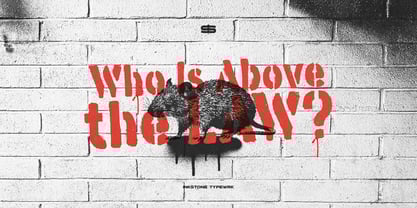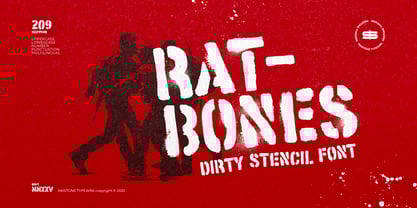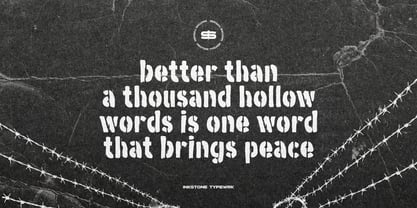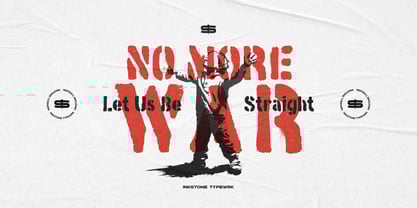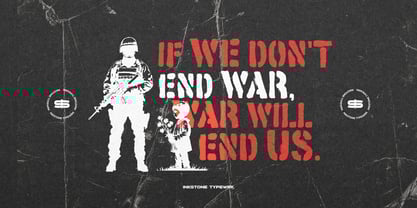
Ratbones
by Inkstone Typewrk
The Ratbones Font Family was designed by Andhika Pradana, Yono Asmadiputra and published by Inkstone Typewrk. Ratbones contains 1 styles. More about this family
Ratbones - Dirty Stencil Font
Raw, rebellious, and built for impact—Ratbones is a rough, dirty stencil font that drips with spray-painted attitude. Inspired by military-style markings, underground street art, and DIY aesthetics, this font delivers that gritty, handmade energy that refuses to be clean or polished.
With its raw edges, organic kerning, and bold stencil cuts, Ratbones is perfect for badass branding, high-impact posters, rugged apparel, and anything that needs a heavy dose of rebellion. Whether you’re designing for streetwear, merch, or edgy editorial layouts, this font hits hard, loud, and unapologetically raw.
About Inkstone Typewrk
Inkstone Typewrk is a bold and visionary type foundry based in Surabaya, Indonesia. Established in 2025, we are multidisciplinary designers driven by fearless ideas and stylish execution. We craft letterforms with attitude—sculpting typefaces that carry a rebellious edge. We don’t just design fonts—we shape type.Founded by Yono Asmadiputra and Andhika Pradana, a dynamic duo united by their love for expressive typography, Inkstone Typewrk is built on passion, collaboration, and a shared obsession for detail. Their synergy fuels a creative playground where bold ideas meet refined craftsmanship.